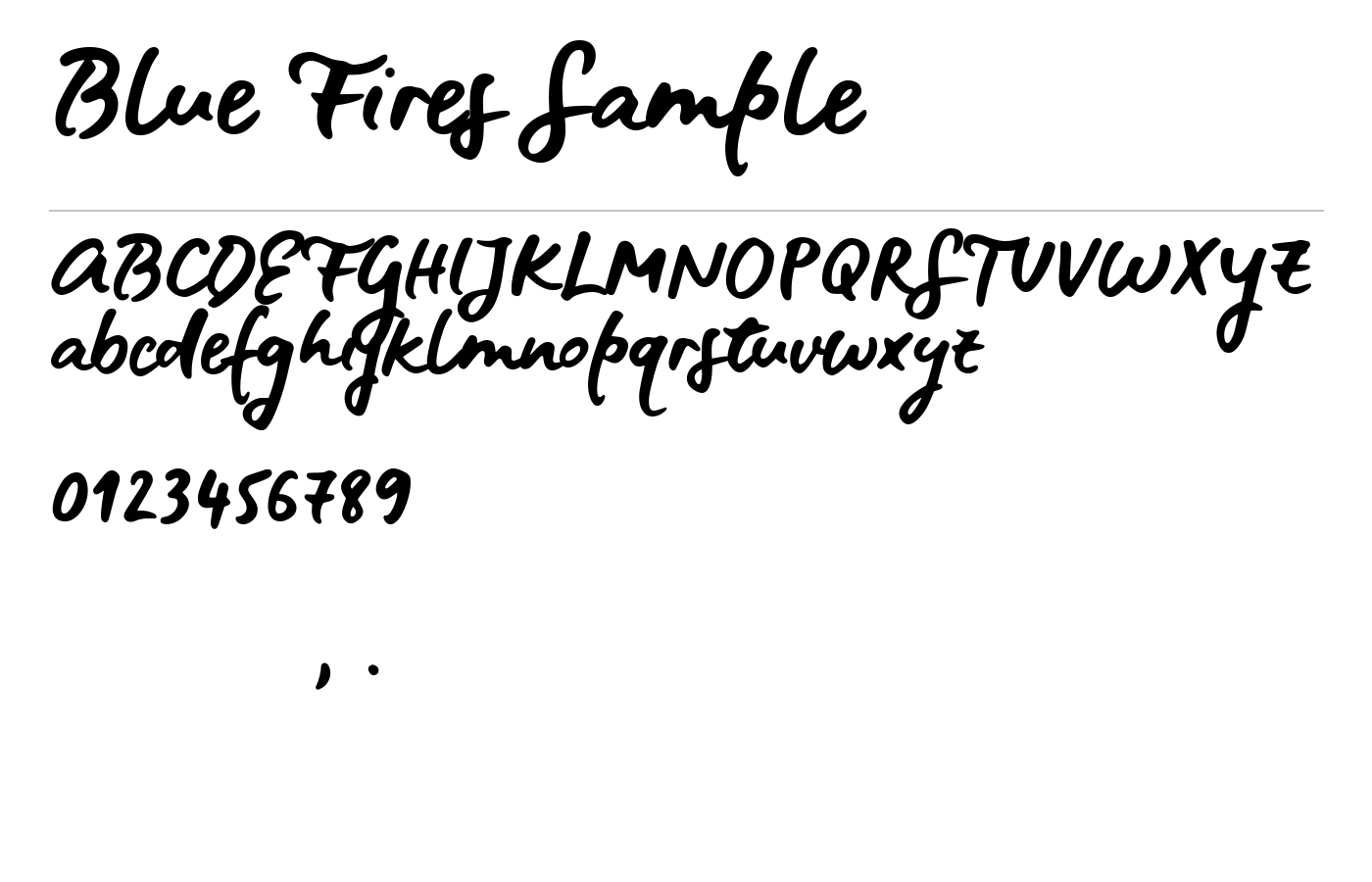
Blue Fires Sample is a casual script font with a friendly and dynamic feel, featuring smooth, flowing strokes and a moderate contrast that mimics natural handwriting. Its playful, rounded letterforms and consistent weight make it ideal for creative projects, invitations, branding, and packaging where a personal and approachable touch is desired. This font works well in headlines and short text, adding warmth and personality without sacrificing readability.
Blue Fires Sample Font
About Blue Fires Sample Font
| Font family | Blue Fires Sample Font |
| Designer | Ana Parracho |